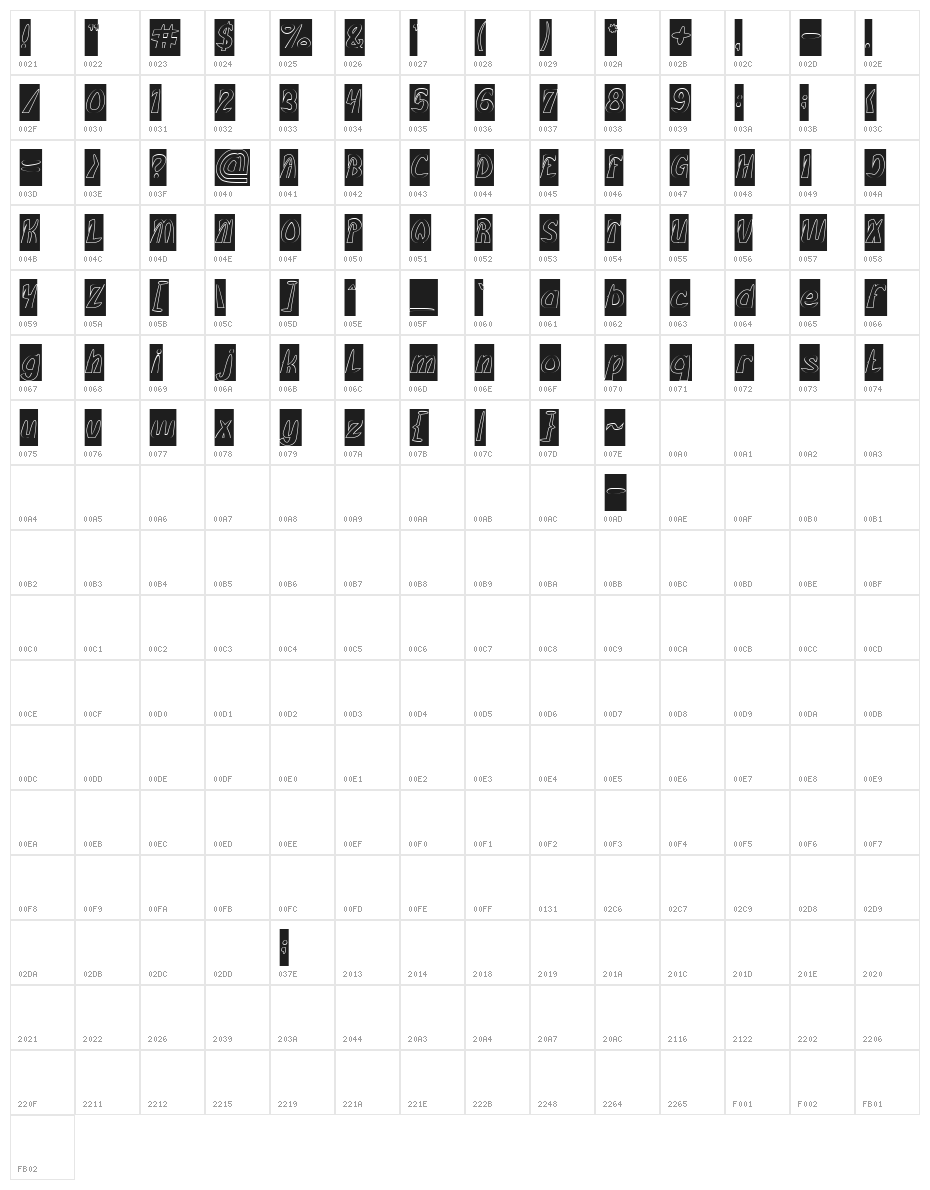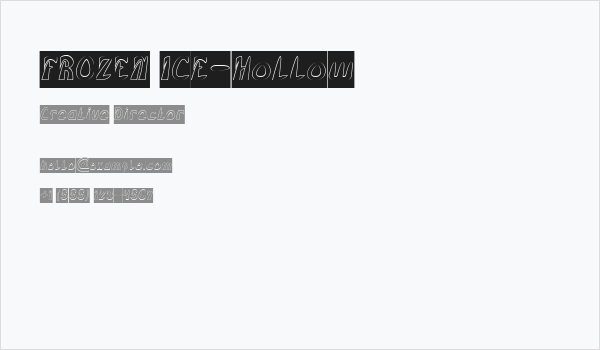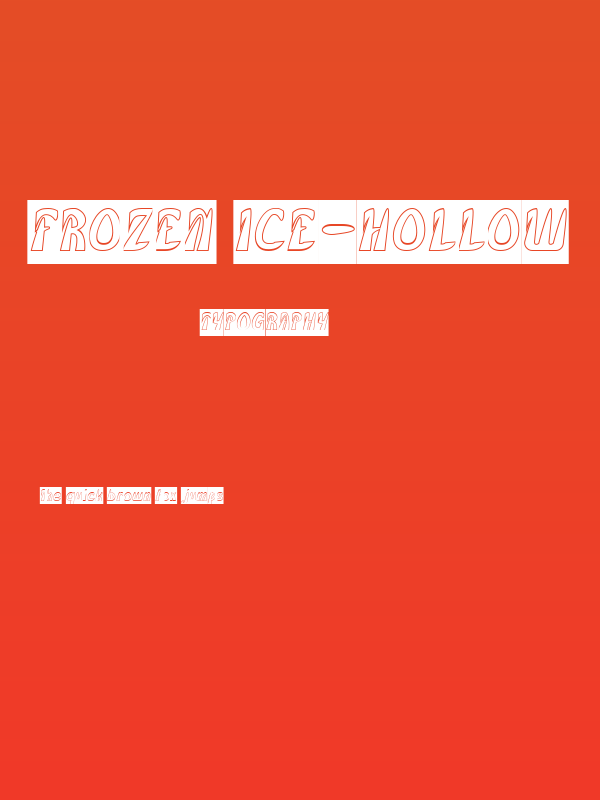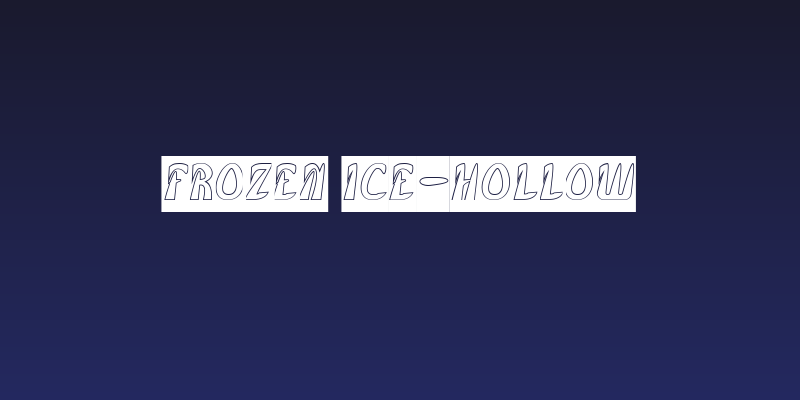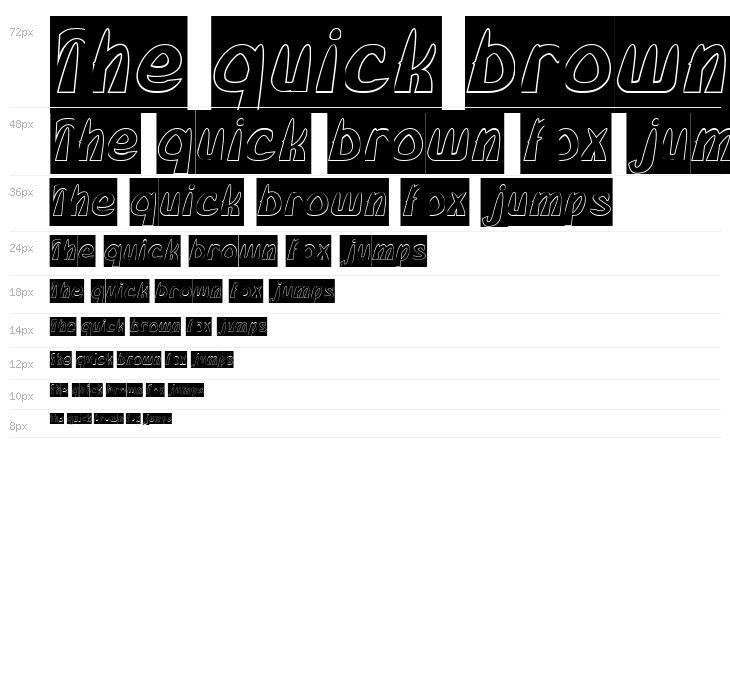
FROZEN ICE-Hollow Font
FROZEN ICE-Hollow Description
This font features a unique hollow design with bold, angular lines that give it a striking appearance. The uppercase and lowercase letters maintain a consistent style, with sharp edges and a slightly italicized slant, creating a sense of movement and energy. The numbers and special characters follow the same design principles, ensuring uniformity across all glyphs. The hollow nature of the font adds a playful and modern touch, making it stand out in any design. Its geometric structure and clean lines make it suitable for a variety of creative projects.
| Proposed Projects | Ideal for posters, logos, headlines, and any design requiring a bold, eye-catching font. |